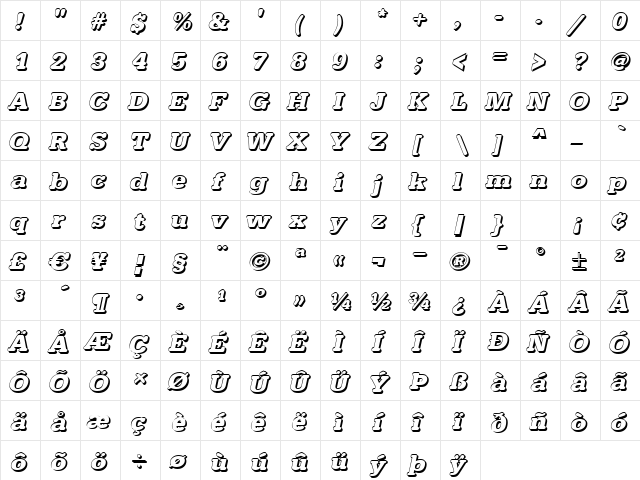
Design Context for AstridBeckerShadowW Typeface
AstridBeckerShadowW is built around its visual character rather than neutral utility — its distinctive forms are designed to make an impression at display sizes. The dynamic lean of this cut emphasises speed and emphasis in any layout. Its bold stroke weight gives it real presence on the page.
Font Pairing: Pair with a clean neutral sans-serif for body copy to let AstridBeckerShadowW's character lead without overwhelming the composition.
Pro Tip: Treat AstridBeckerShadowW as the centrepiece of your typographic hierarchy. One strong heading set in a decorative face can carry an entire layout.